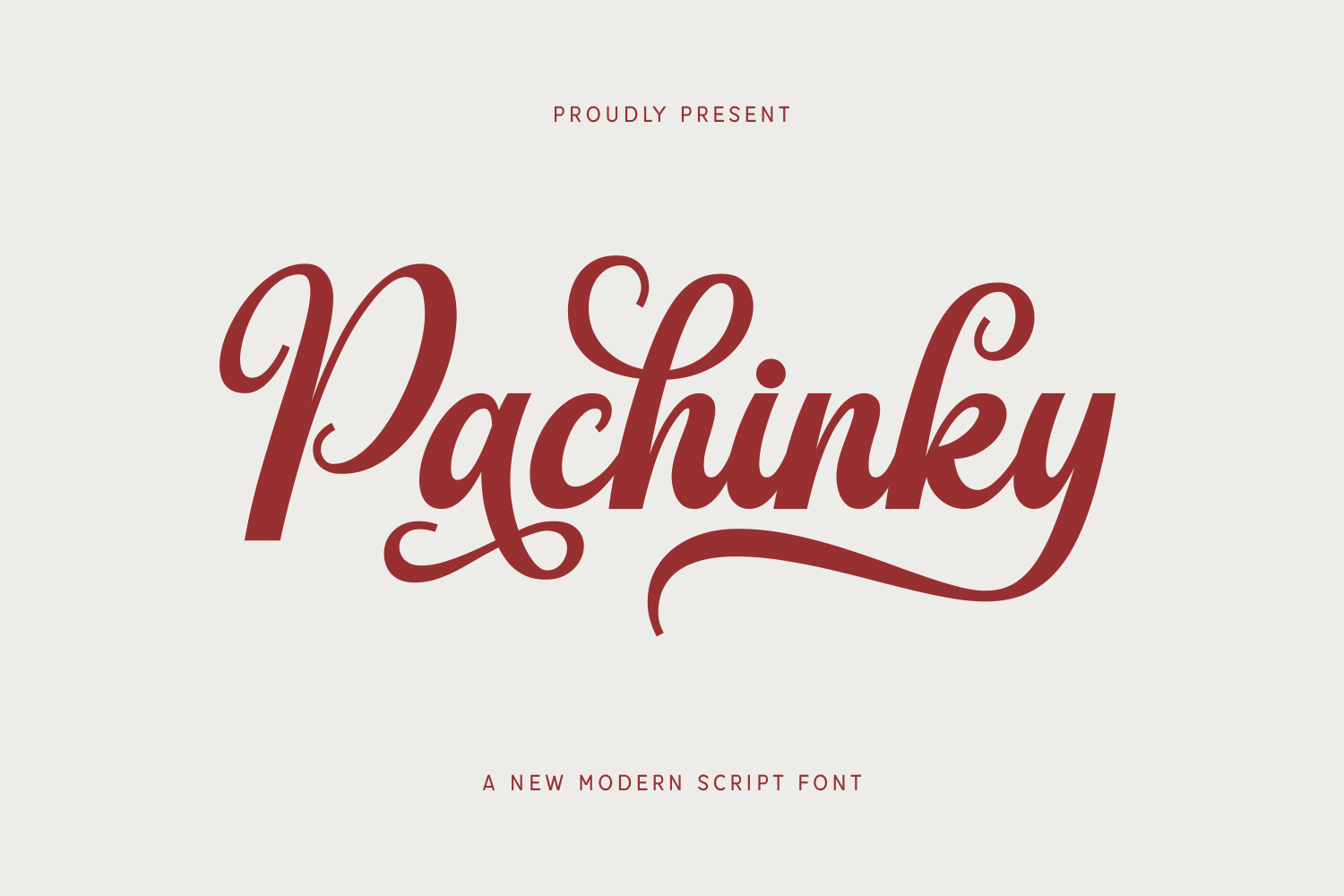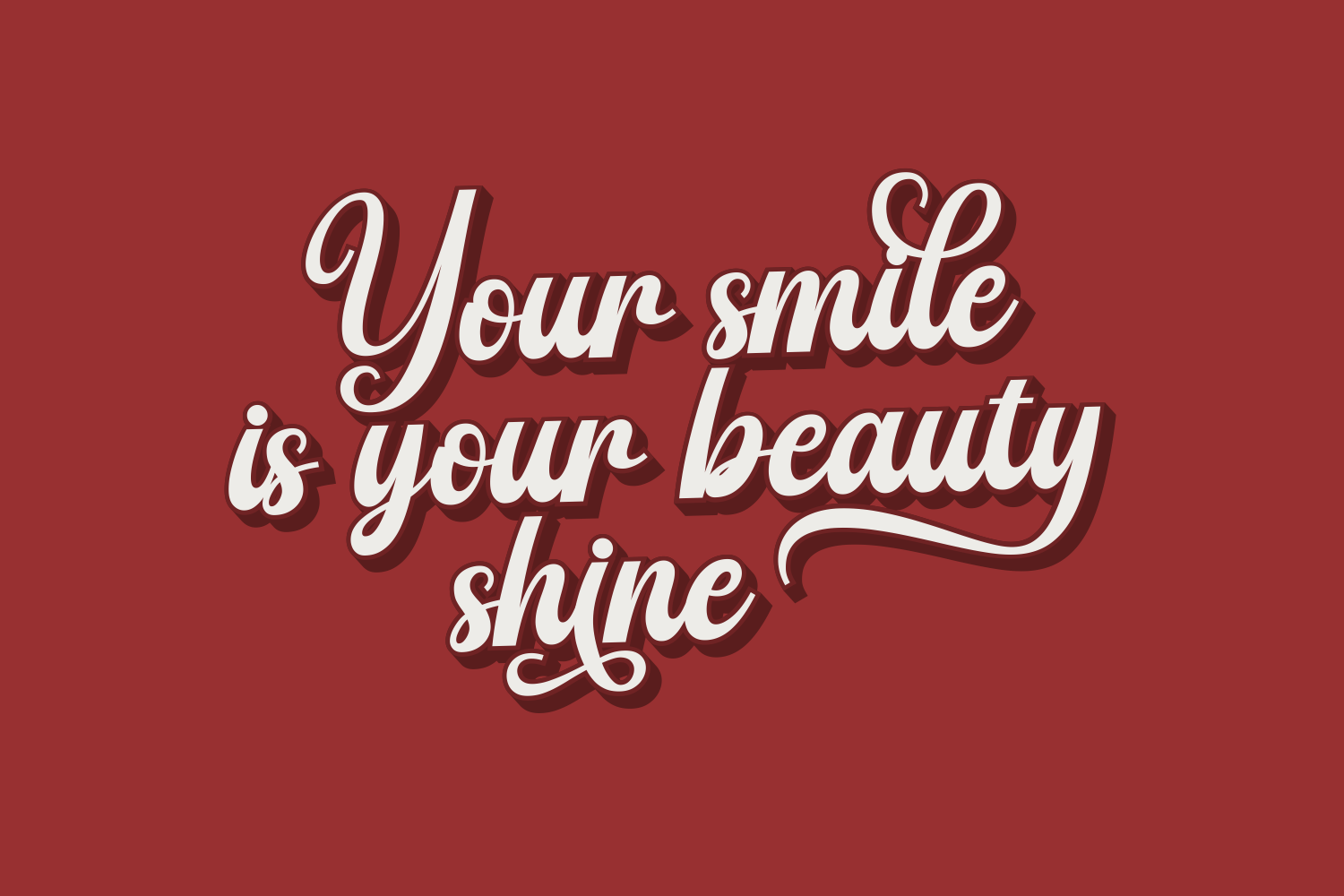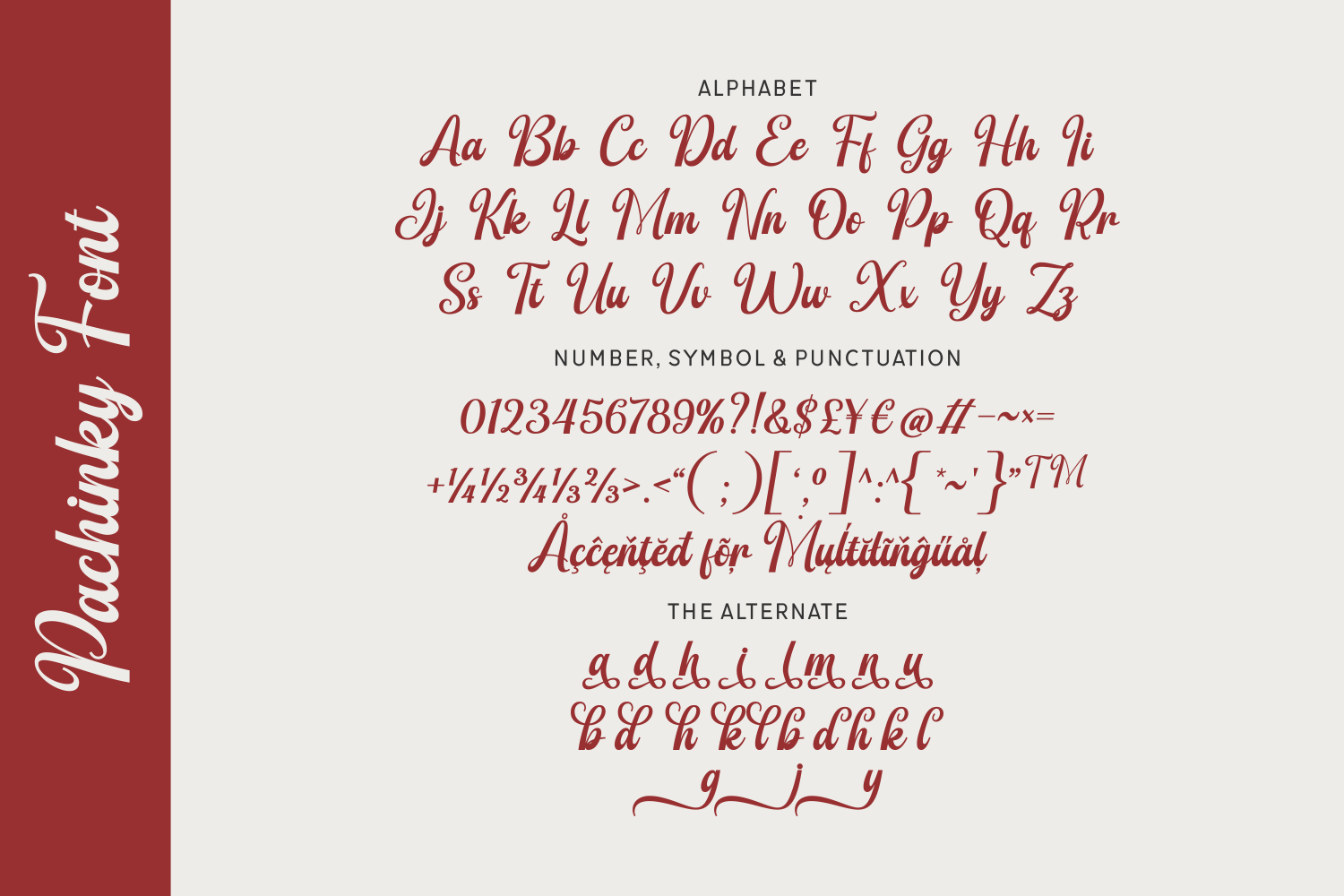
Pachinky is a bold and expressive modern script font that combines sleek curves with high-impact swashes, making it perfect for standout visual designs.
This typeface is rich with personality—featuring alternates and multilingual support to enhance its versatility. Whether you're going for charming elegance or urban trendiness, Pachinky delivers punchy charisma while maintaining legibility and structure across all media.